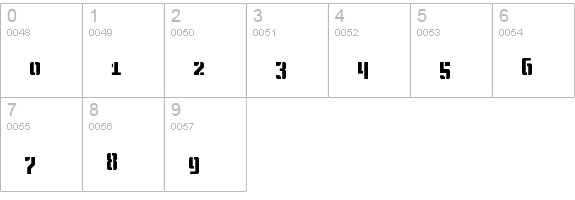
KING SANS STENCIL Regular Font Details
KING SANS STENCIL Regular is the standard, neutral variant in the KING typeface family \xE2\x80\x94 well suited to general body text, paragraphs, and standard typographic work.
Introducing KING SANS STENCIL Regular, a font that exudes power, elegance, and versatility. With its clean and bold lines, this font is perfect for creating eye-catching designs that demand attention. The stencil style adds a unique touch, giving your projects a modern and edgy feel. KING SANS STENCIL Regular is ideal for various design purposes, from branding and advertising to packaging and signage. Its versatility allows it to be used in both small and large sizes, making it suitable for anything from elegant logos to impactful headlines. But what sets KING SANS STENCIL Regular apart is not just its stunning design, but also its accessibility. This font is available for free download at FontsMarket.com, making it easily accessible to designers, creatives, and typography enthusiasts alike. Now, you can add this exceptional font to your collection without any cost, and unleash your creativity without limitations. Download KING SANS STENCIL Regular today from FontsMarket.com and elevate your designs to a whole new level. Whether you're working on a personal project or a professional endeavor, this font will undoubtedly leave a lasting impression. Embrace the power of KING SANS STENCIL Regular and let your imagination run wild.